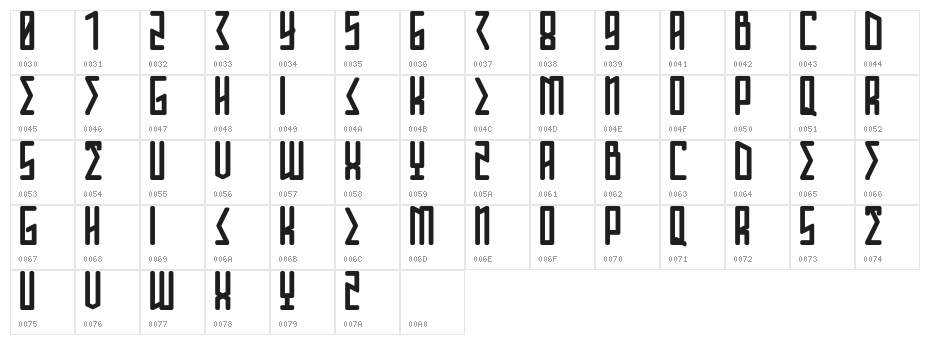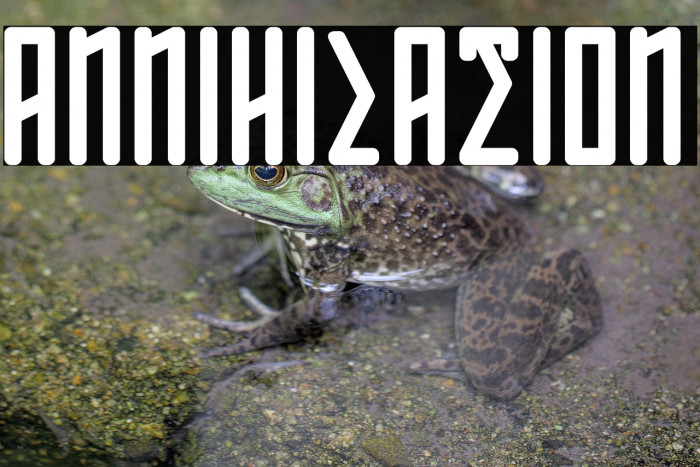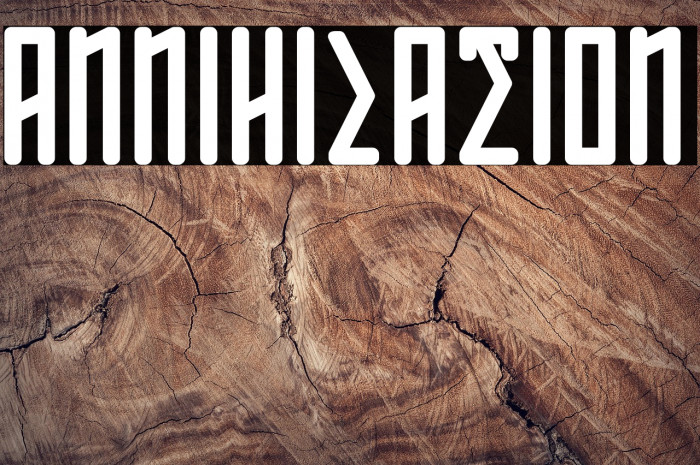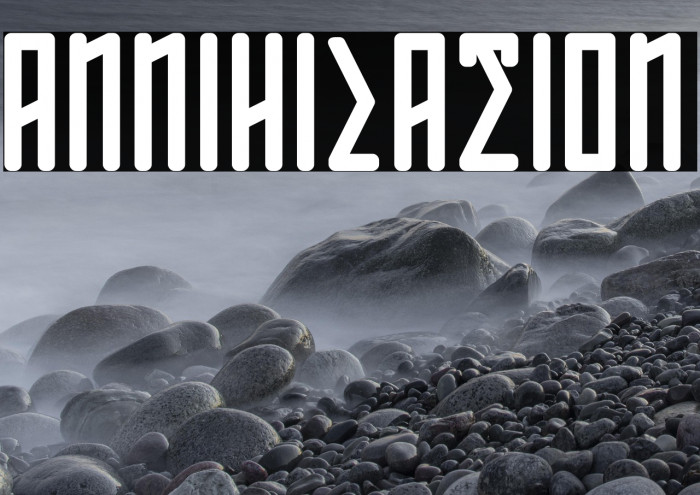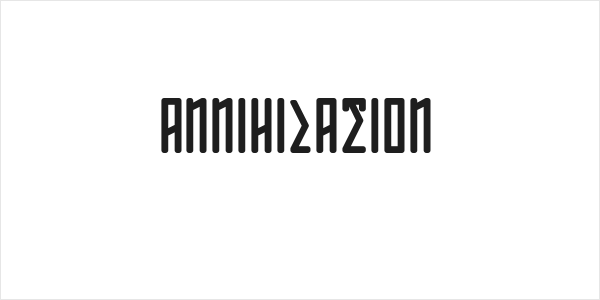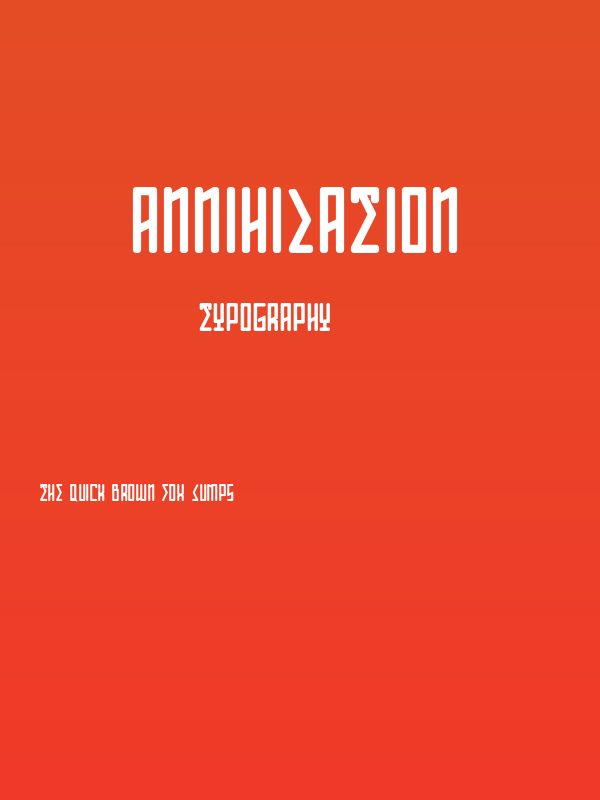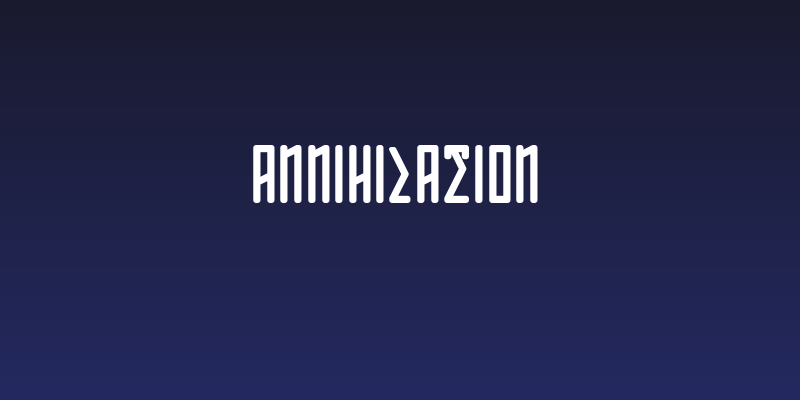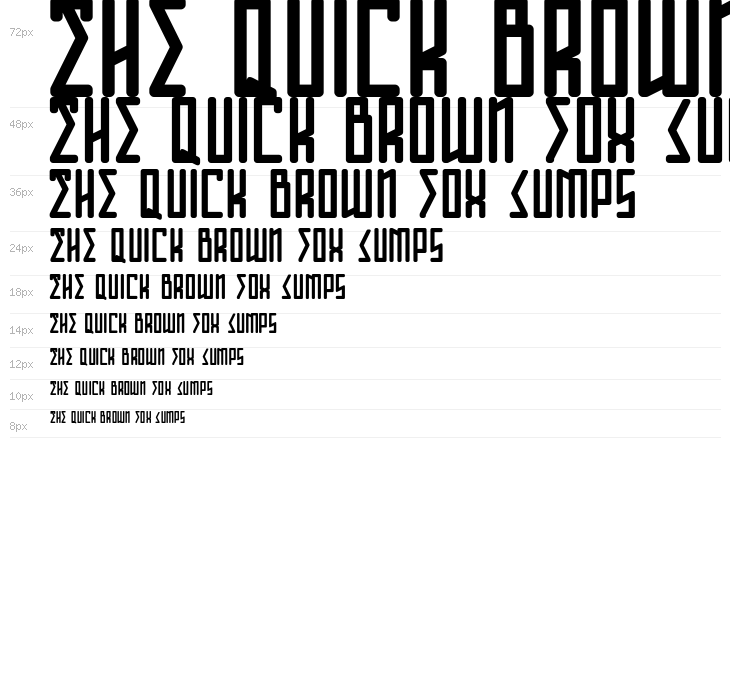
ANNIHILATION Font
ANNIHILATION Description
This font features a bold and geometric design with a futuristic and angular aesthetic. The characters are constructed with thick, uniform strokes that create a strong visual impact. The uppercase letters are particularly striking, with sharp angles and unique shapes that give the font a distinctive look. The lowercase letters maintain the same geometric style, ensuring consistency across the typeface. Numbers and special characters are also designed to match the bold and angular theme, making this font suitable for projects that require a modern and edgy appearance.
| Proposed Projects | Ideal for sci-fi themed posters, video game titles, branding for tech companies, and any project requiring a modern, edgy look. |